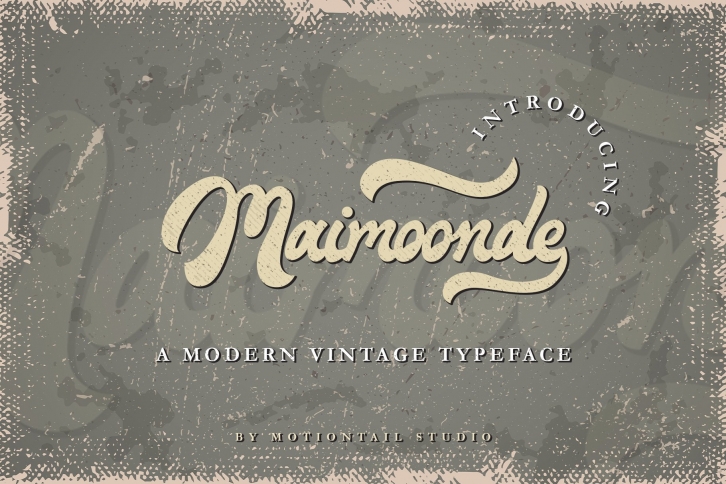
Maimoonde font a display typeface awesome character. Maimoonde font it’s perfect for name card, posters, logos, magazines, covers, banners, t-shirts and headers, or even large-scale artwork.
Features: • OpenType Features • Uppercase & Lowercase • Numeral & Punctuation • PUA Encoded • Multilingual support • Swash • Alternate Beginning and ending Files included: